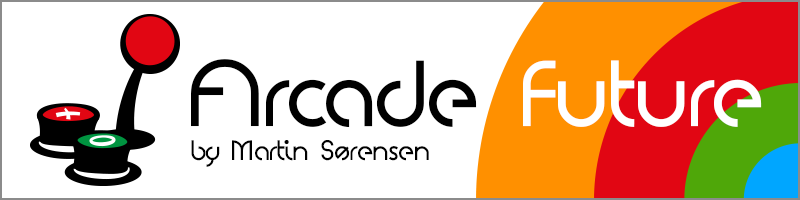
Preview and download Arcade Future Font. Created by Martin Sørensen in Techno Various styles with Free for personal use license.
This is a futuristic font inspired by the arcade scene. The font is for personal use only, if you would like to use it commercially. please donate an appropriate amount depending on the use. Thank you! Martin Sørensen |